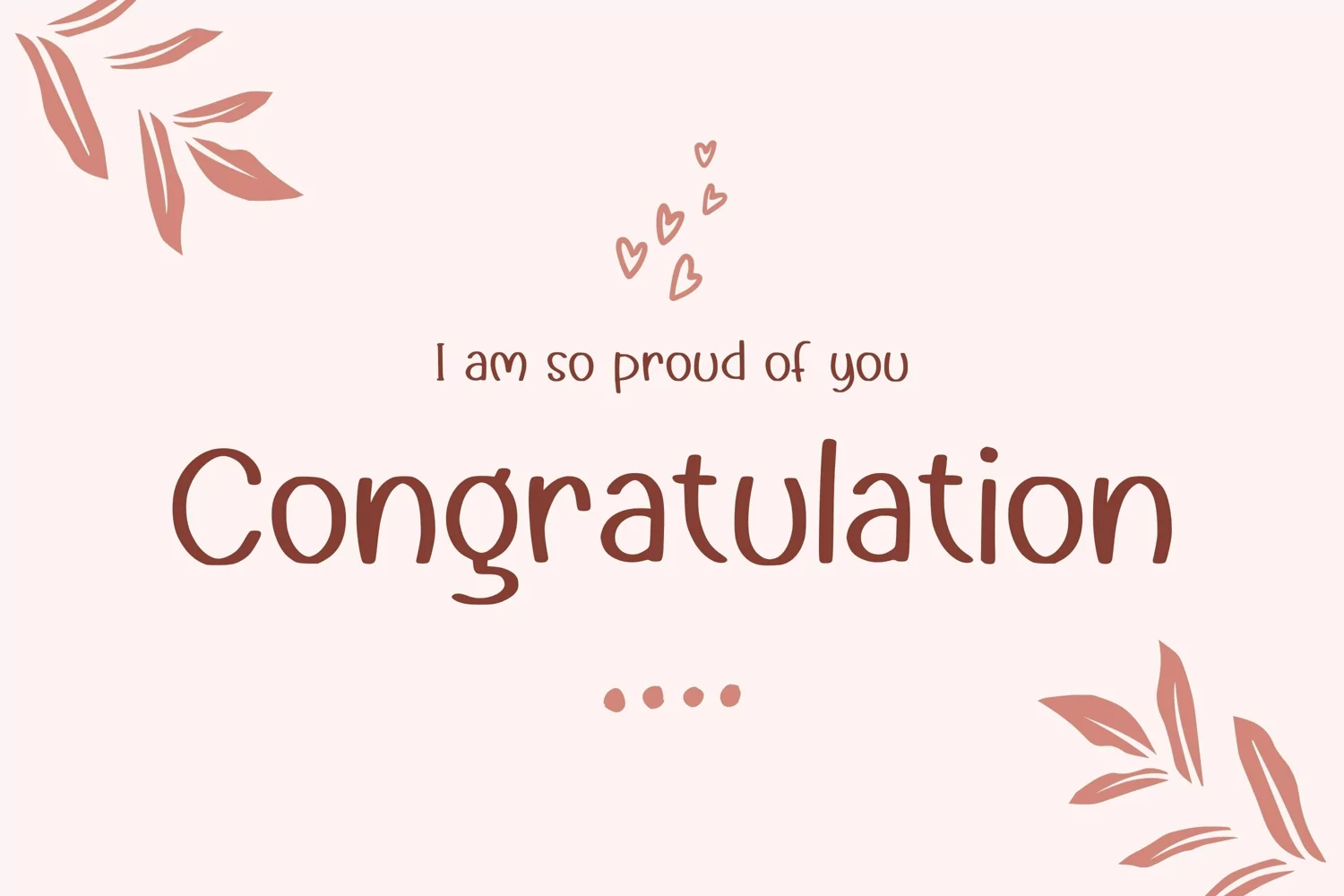
Discover the charm of Qumae, a uniquely cool handwriting font. Ideal for injecting a touch of artistic flair into your crafting and branding projects, Qumae brings versatility and distinctive appeal. This expressive typeface wonderfully bridges the gap between creative fun and professional elegance, making it perfect for any design endeavor. Stand out from the crowd effortlessly with Qumae handwriting font.